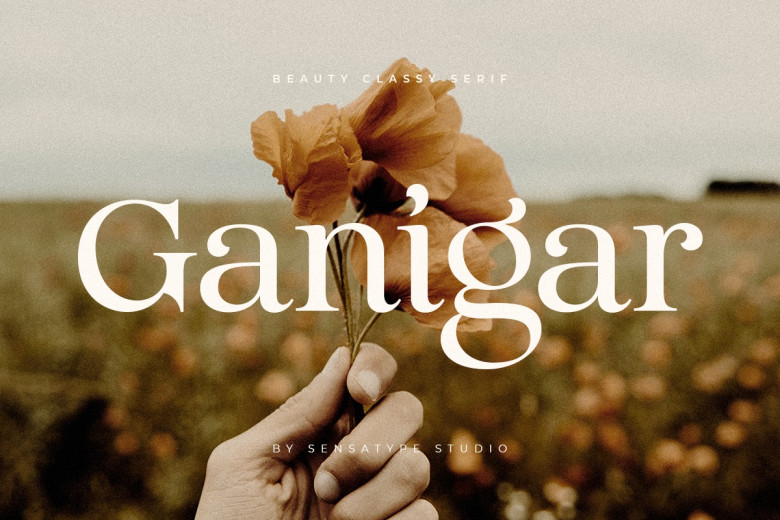
Ganigar Font
Ganigar is an elegant serif font for professional use that is in many ways bold. Highly likely you’ll fall in love with the style and apply it productively to produce beautiful wedding invitations, best of artwork for gifts, perfect post covers, and so much more.
Ganigar Serif Font